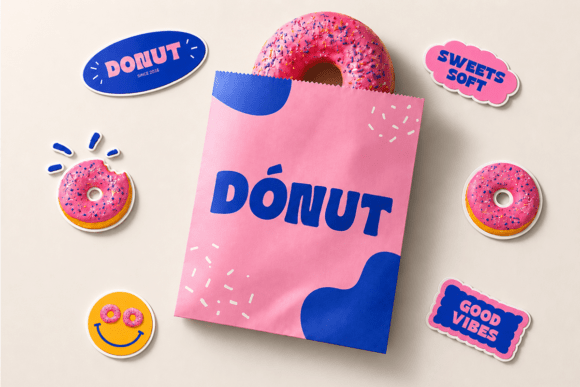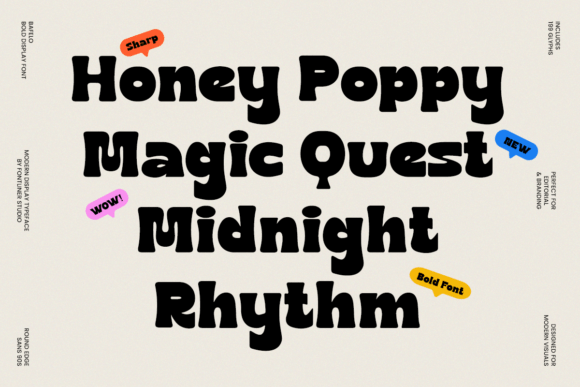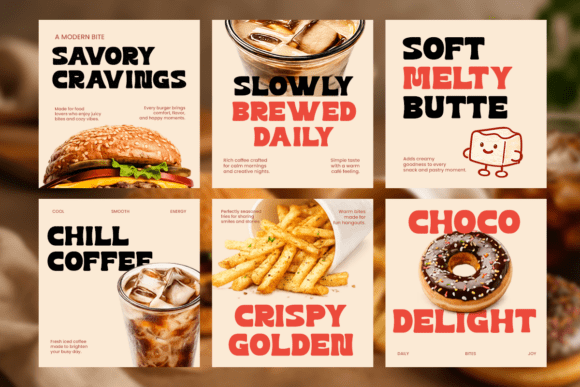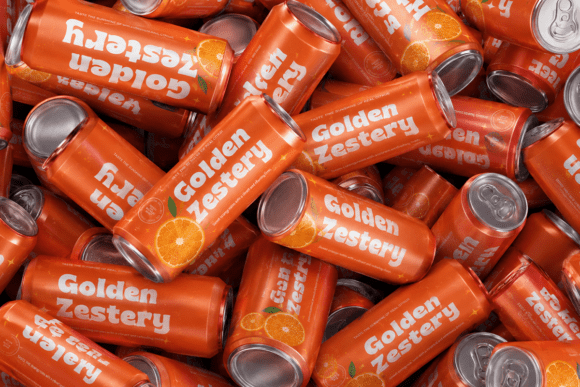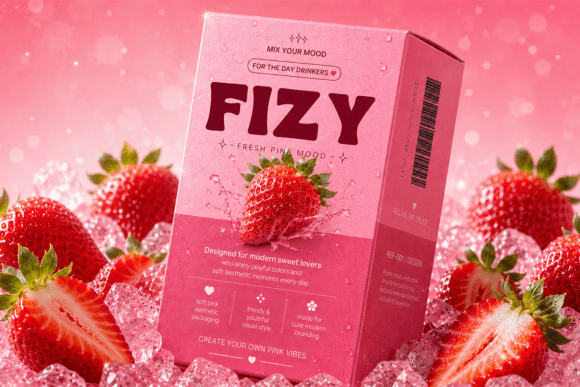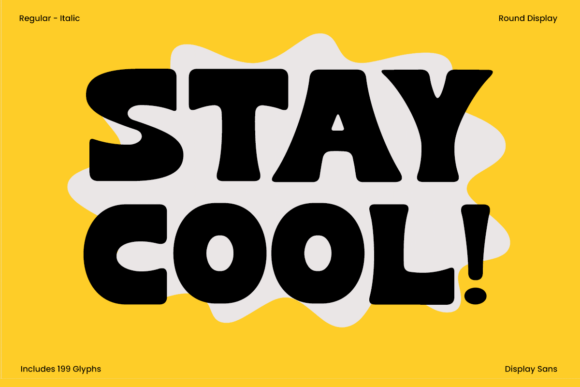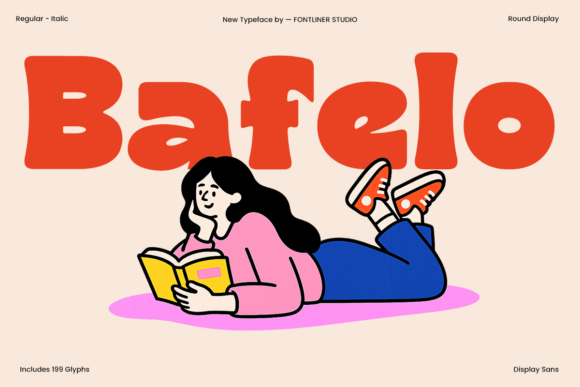
Introducing Bafelo Font: The Ultimate Display Sans for Creative Projects
In the world of typography, a font can make or break the visual identity of a creative project. If you’re a designer or crafter looking for a bold, playful, and charming typeface to bring your ideas to life, look no further than Bafelo Font. Designed to inject fun, warmth, and personality into your projects, Bafelo is the perfect choice for those who want to make a statement.
The Bafelo Advantage: Bold, Rounded, and Playful
Bafelo is a bold rounded display sans font that boasts chunky letterforms, soft curves, and a cheerful visual energy. Its friendly character makes every headline feel approachable, energetic, and instantly memorable. With Bafelo, you can add a touch of playfulness to your branding, packaging, posters, social media graphics, and logo designs. Whether you’re working on a children’s product, educational material, or cartoon-inspired merchandise, this font is sure to delight.
Versatility for Designers
One of the standout features of Bafelo is its versatility. This font offers expressive typography with strong readability, making it perfect for designers who need a reliable and attention-grabbing typeface. From food branding to playful startup identities, toy packaging to vibrant promotional campaigns, Bafelo delivers a bold and charming visual presence that will elevate your creative projects.
A Perfect Blend of Retro and Contemporary Styles
Bafelo combines retro display aesthetics with contemporary rounded sans styling, making it a unique and refreshing addition to any design project. Its modern, joyful, and full-of-character approach makes it ideal for brands that want to stand out from the crowd. With Bafelo, you can create eye-catching headlines, logos, and graphics that are sure to leave a lasting impression.
So, what kind of projects are perfect for Bafelo Font? The answer is: any project that needs a fun, bold, and playful typographic voice. Here are some ideas to get you started:
- Children’s products: Bafelo’s playful and cheerful personality makes it an excellent choice for kids’ toys, games, and educational materials.
- Food branding: Add a touch of fun and approachability to your food brand with Bafelo’s bold and rounded letterforms.
- Playful startup identities: Bafelo’s modern and energetic vibe makes it perfect for startups that want to make a statement.
- Toy packaging: Make your toy packaging stand out with Bafelo’s bold and colorful typography.
- Educational materials: Bafelo’s friendly character makes it an excellent choice for educational materials, such as textbooks, workbooks, and activity sheets.
- Cartoon-inspired merchandise: Add a touch of playfulness to your cartoon-inspired merchandise, such as t-shirts, stickers, and posters.
- Vibrant promotional campaigns: Bafelo’s bold and charming visual presence makes it perfect for promotional campaigns that need to grab attention.
Why Choose Bafelo Font?
So, why choose Bafelo Font for your creative projects? Here are just a few reasons:
- Unique and refreshing design: Bafelo’s blend of retro and contemporary styles makes it a standout typeface that will elevate your designs.
- Versatile and adaptable: Bafelo is perfect for a wide range of creative projects, from branding and packaging to posters and social media graphics.
- Strong readability: Bafelo’s bold and rounded letterforms make it easy to read, even at smaller sizes.
- Fun and playful personality: Bafelo’s cheerful visual energy makes it perfect for projects that need a touch of playfulness and whimsy.
| Author | Font Liner |
In conclusion, Bafelo Font is the perfect choice for designers and crafters who want to add a touch of fun, warmth, and personality to their creative projects. With its bold rounded display sans design, chunky letterforms, and cheerful visual energy, Bafelo is sure to make a statement. Whether you’re working on branding, packaging, posters, or social media graphics, this font delivers a bold and charming visual presence that will elevate your designs. So why wait? Try Bafelo Font today and bring your creative projects to life!